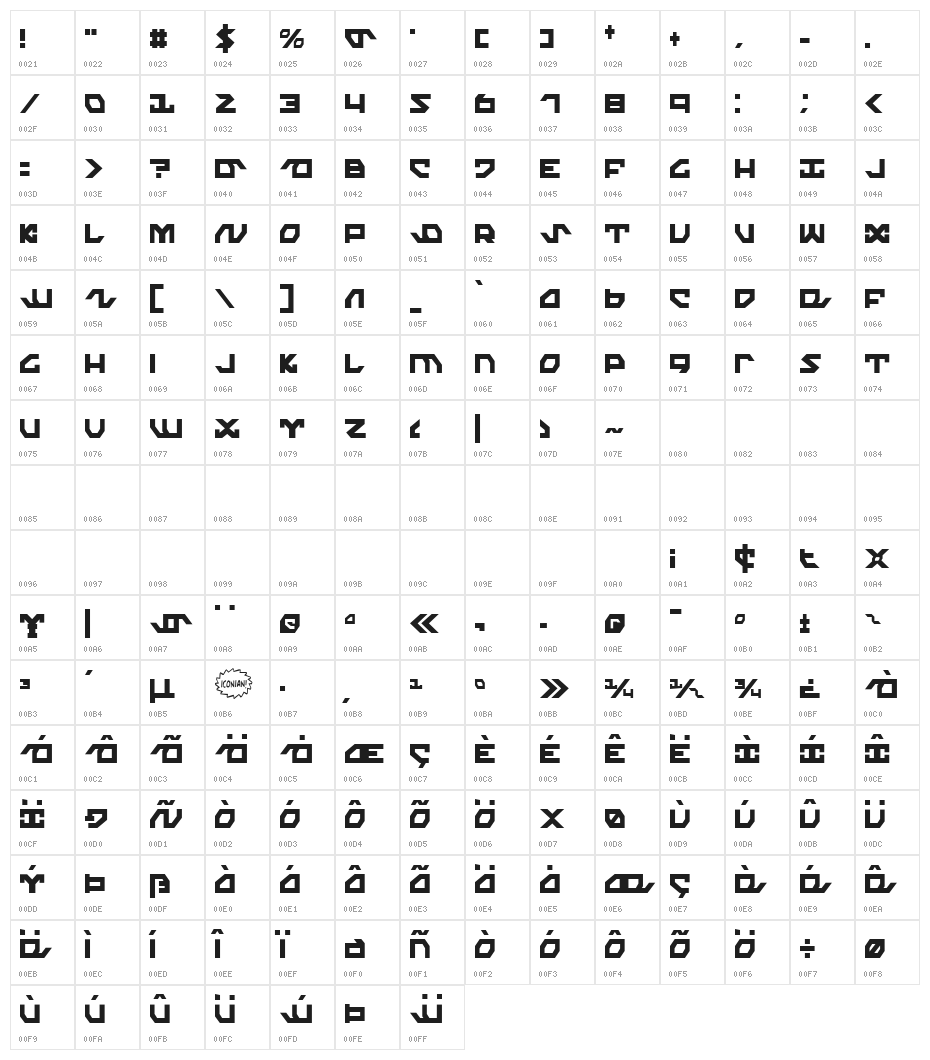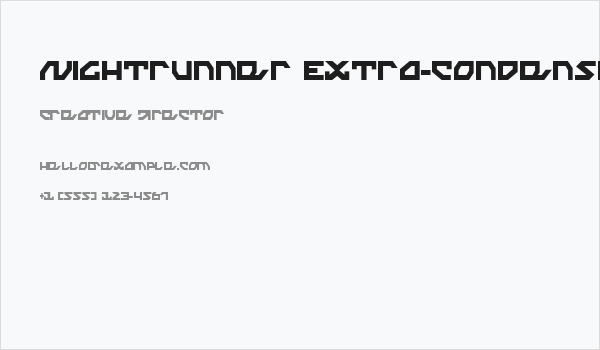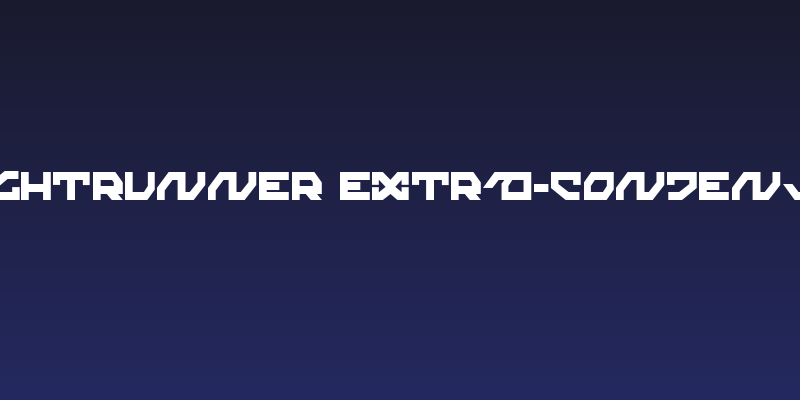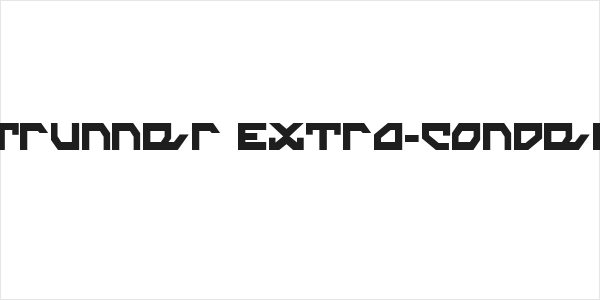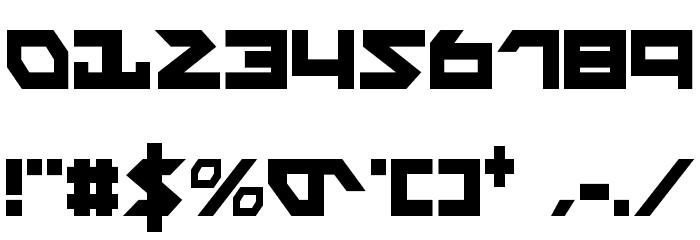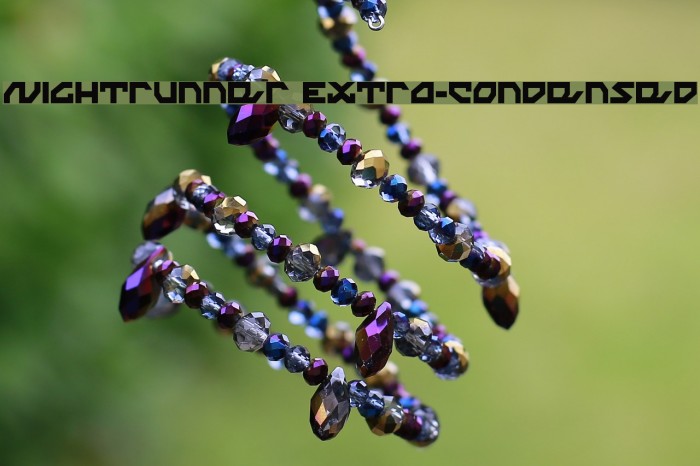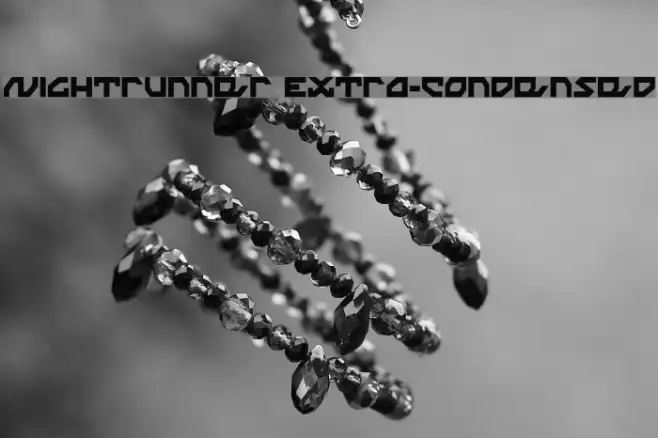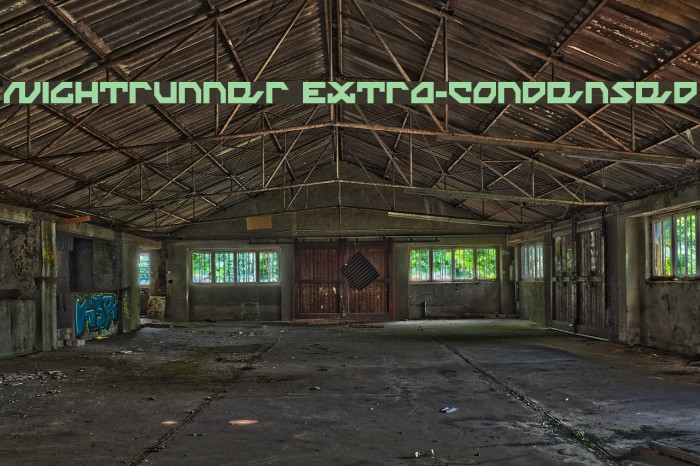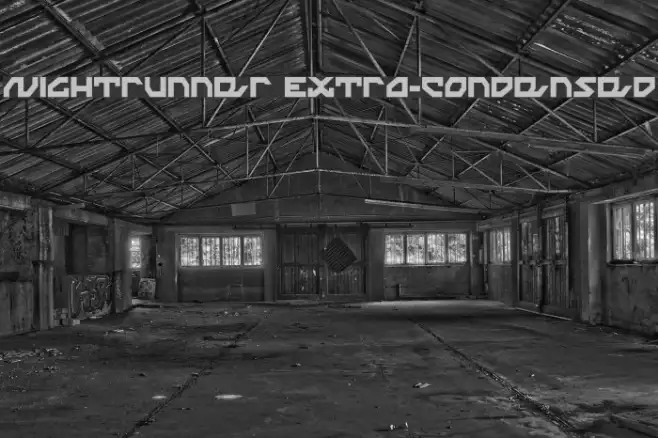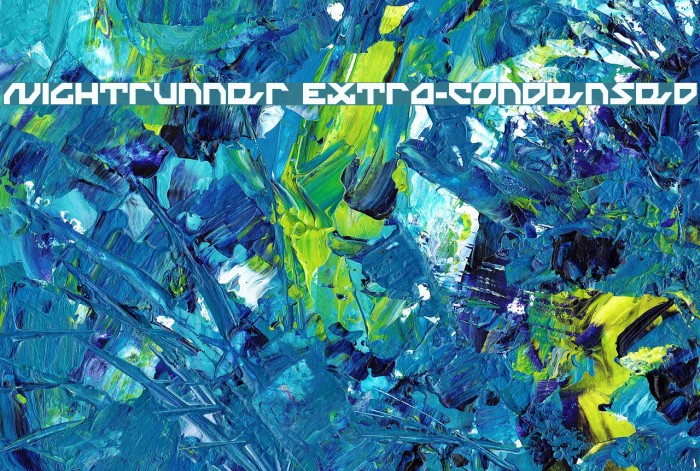
Nightrunner Extra-Condensed Font
| Style général | Futuristic |
| Projets proposés | Ideal for sci-fi themed designs, video game titles, posters, and branding that requires a modern and edgy look. |